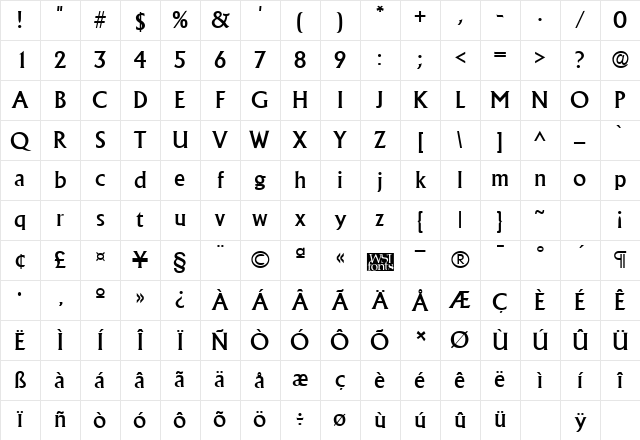
Acclaim Regular
Acclaim Family
Design Context for Acclaim
Acclaim is a composed and adaptable typeface that performs quietly and consistently across a wide range of design contexts.